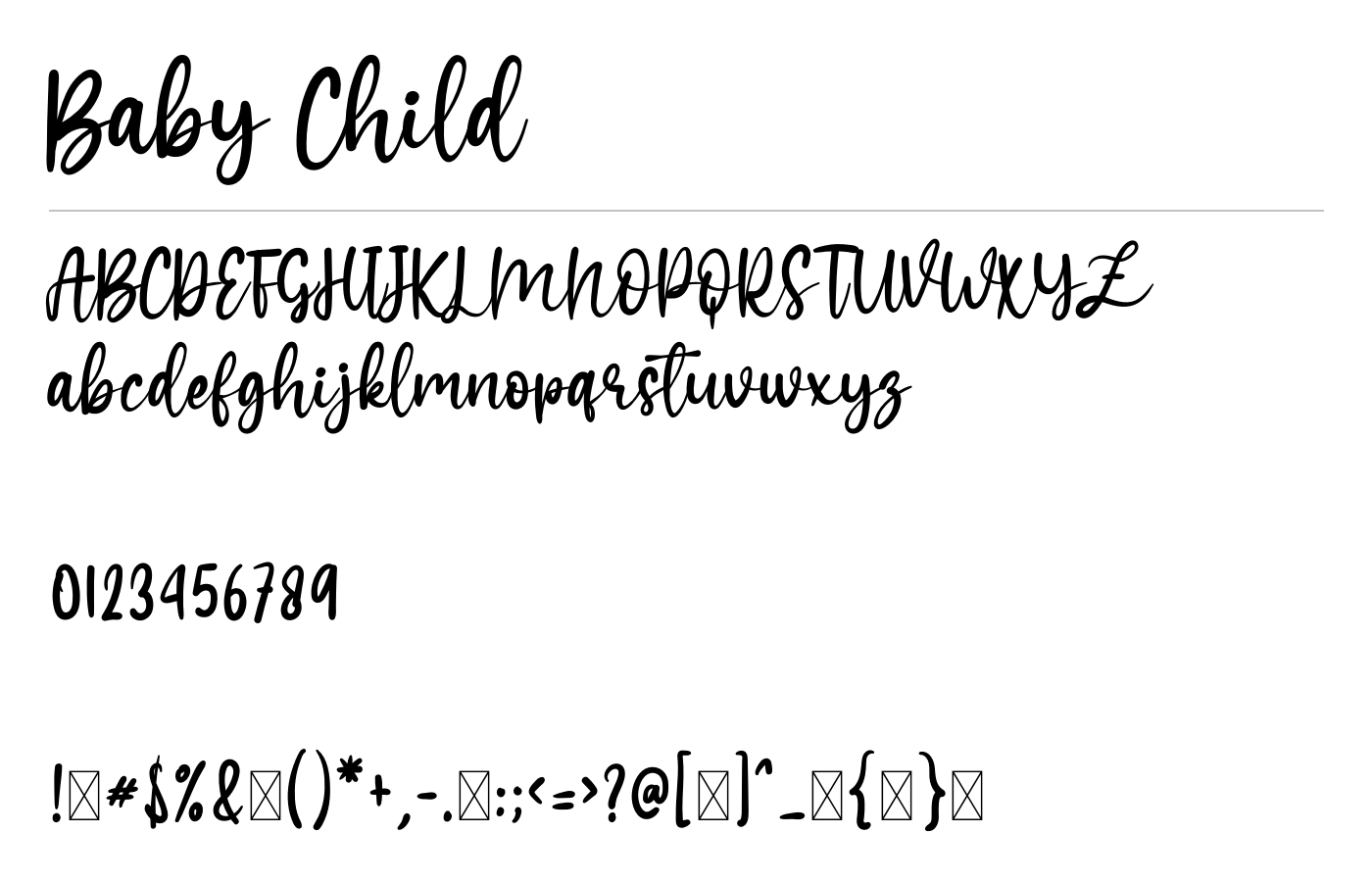
Baby Child is a playful and friendly script font with a smooth, handwritten style that brings a warm and inviting feel. Its moderate weight and clean, flowing strokes make it ideal for casual, creative projects like children’s products, invitations, and branding that wants to convey charm and approachability. This font works well in headlines and logos where a personal, cheerful touch is desired.
Baby Child Font
About Baby Child Font